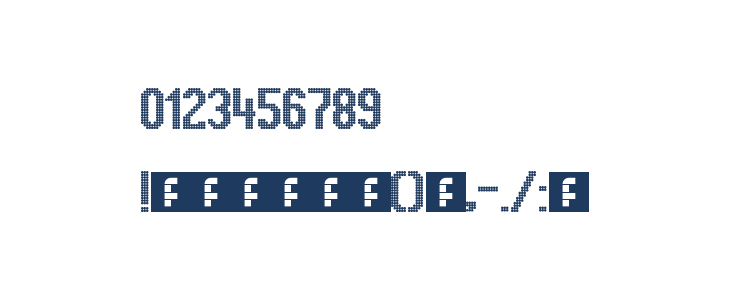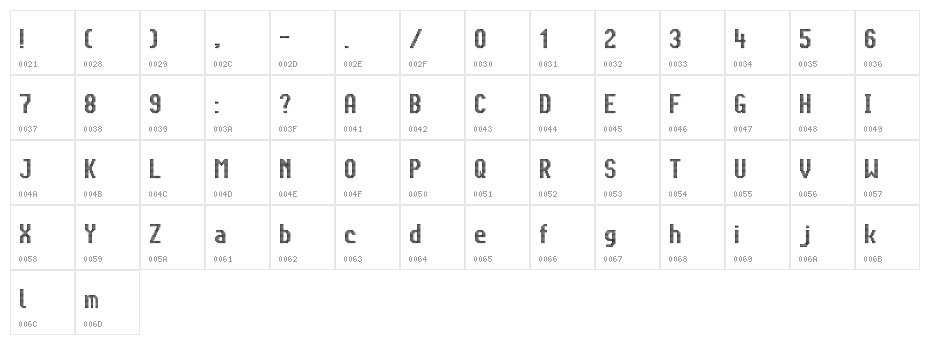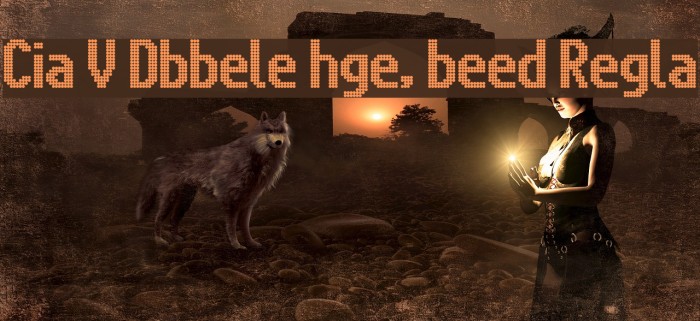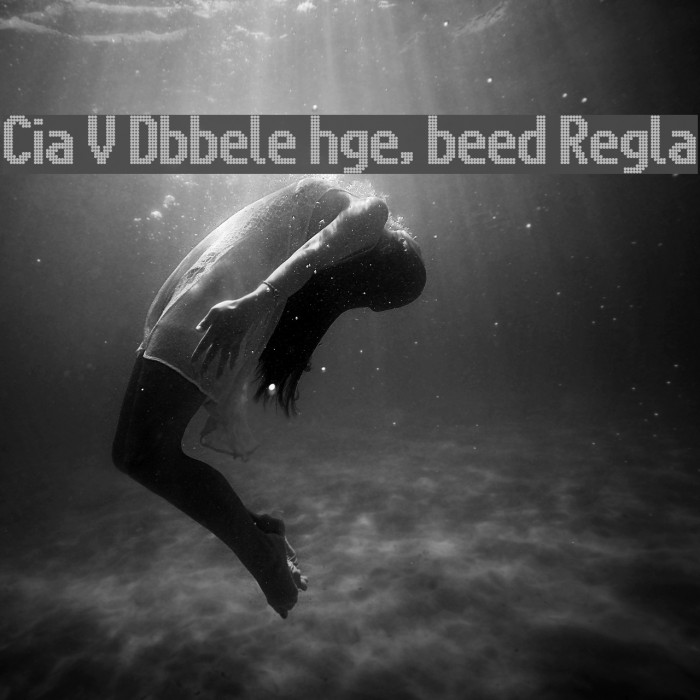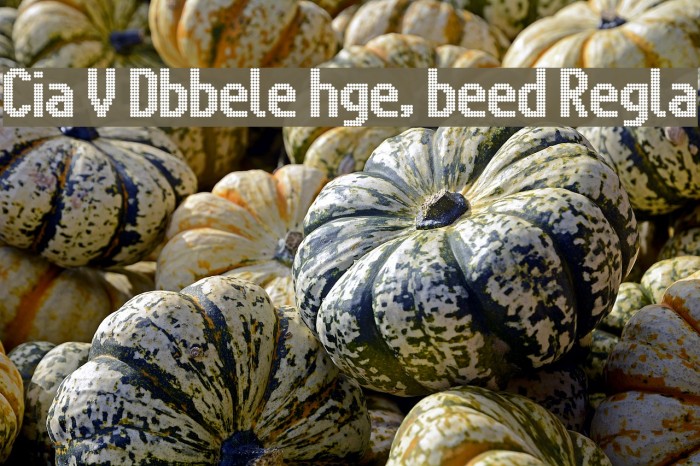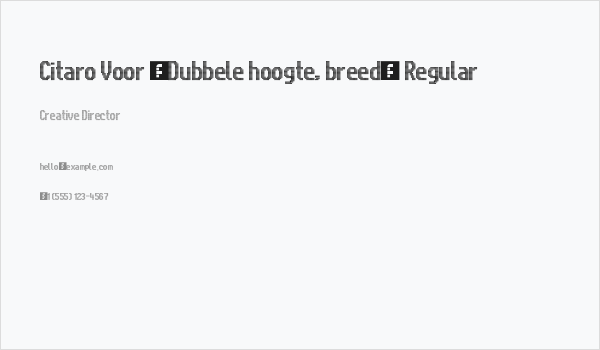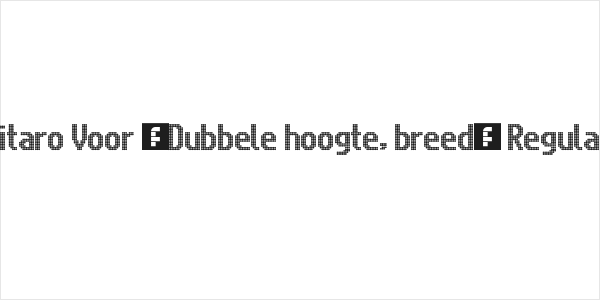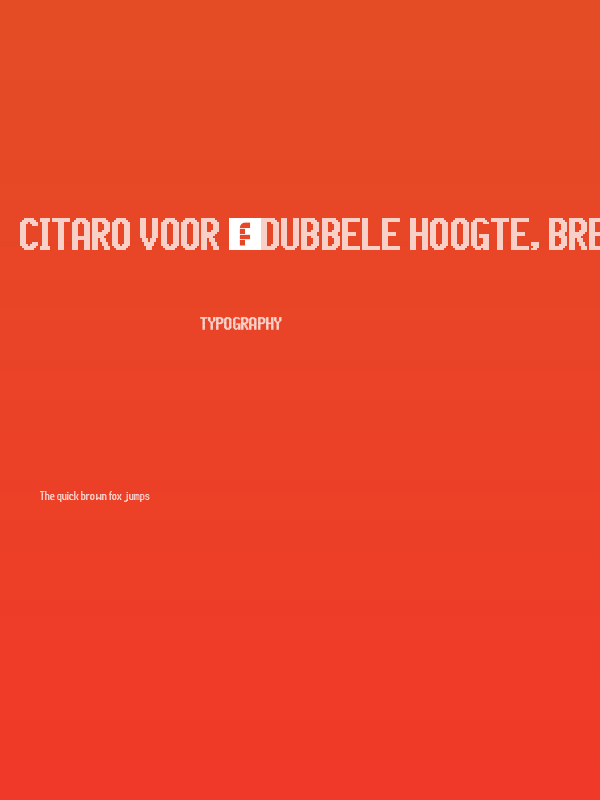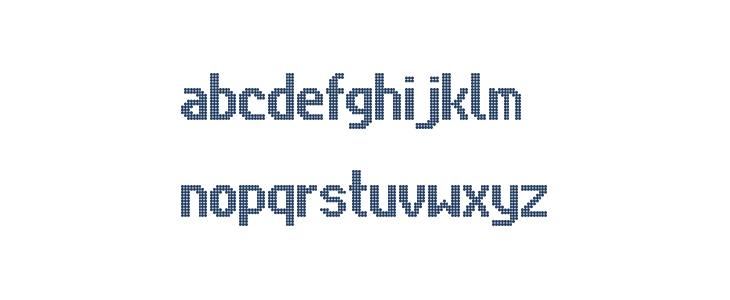
Citaro Voor [Dubbele hoogte, breed] Regular Font
Citaro Voor [Dubbele hoogte, breed] Regular Description
This font features a unique dot matrix design, reminiscent of digital displays and retro technology. Each character is composed of a grid of dots, creating a pixelated effect that is both modern and nostalgic. The uppercase and lowercase letters maintain a consistent style, with a uniform height and width that ensures readability. Numbers and special characters follow the same dot pattern, providing a cohesive look across all glyphs. The font's geometric structure and even spacing make it suitable for digital-themed projects or designs that require a tech-inspired aesthetic.
| Proposed Projects | Ideal for digital displays, retro-themed designs, tech-related branding, and creative posters. |